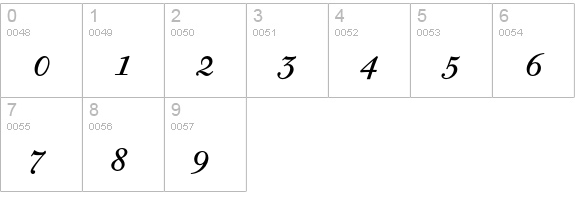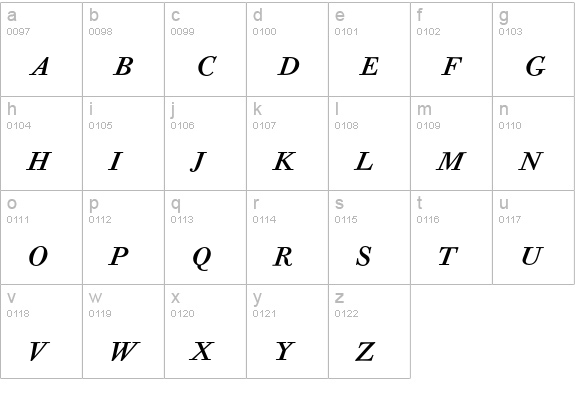
Bodoni Old Face Expert Italic Font Details
Bodoni Old Face Expert Italic is a distinctive, italic variant in the Bodoni typeface family \xE2\x80\x94 well suited to design and typography projects.
Bodoni Old Face Expert Italic font is a timeless and elegant typeface that exudes sophistication and refinement. Its graceful curves and delicate serifs give it a classic and luxurious feel, making it perfect for high-end design projects and editorial layouts. The expertly designed italic version adds a touch of flair and elegance to any text, enhancing its visual appeal and readability. This exquisite font is now available for free download at FontsMarket.com, allowing designers and typographers to access this premium typeface without any cost. Whether you're working on a wedding invitation, a book cover, or a branding project, Bodoni Old Face Expert Italic font will elevate your design to new heights with its timeless beauty and versatility. Download it now and add a touch of sophistication to your creative projects.